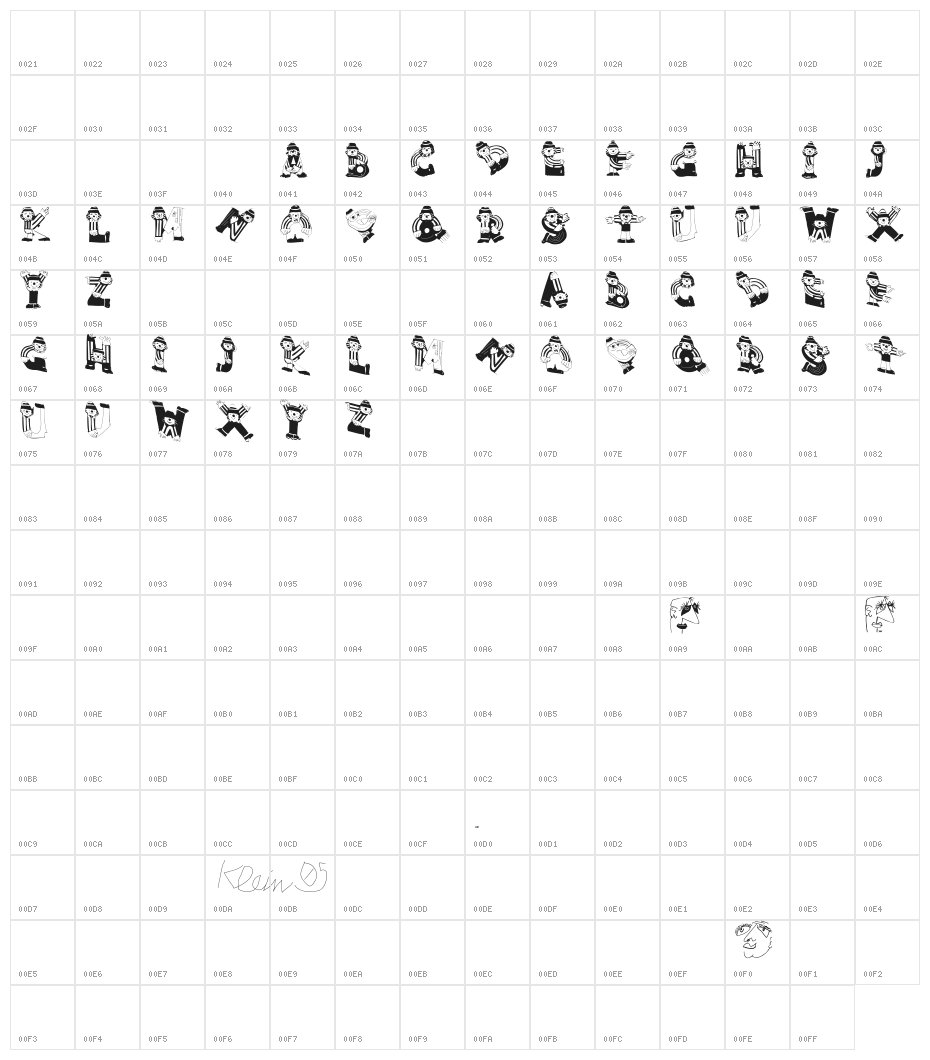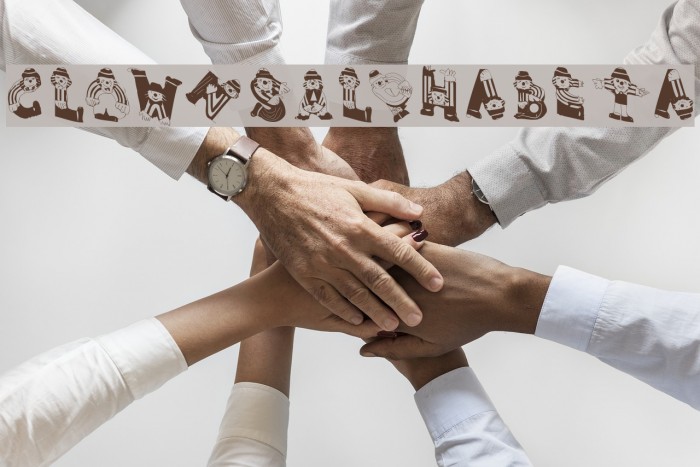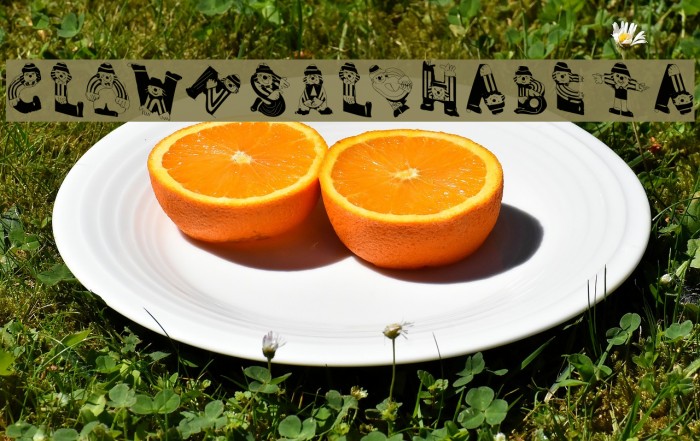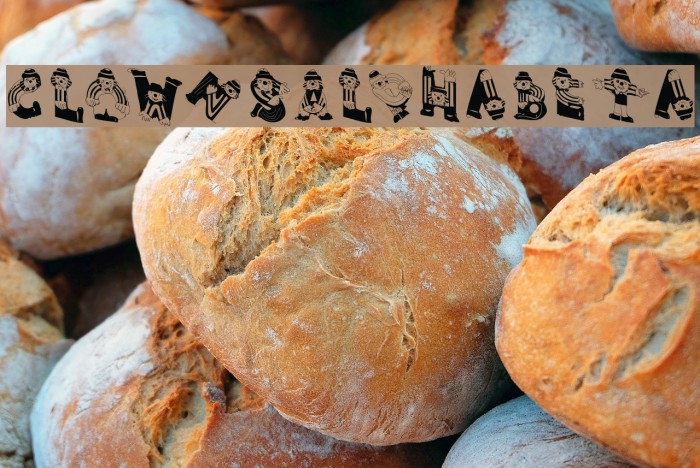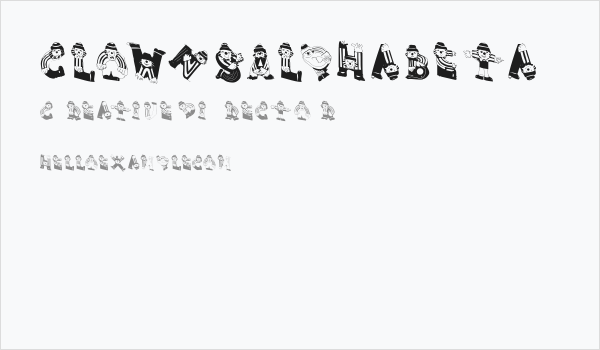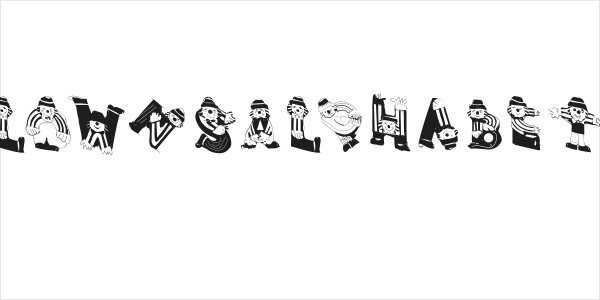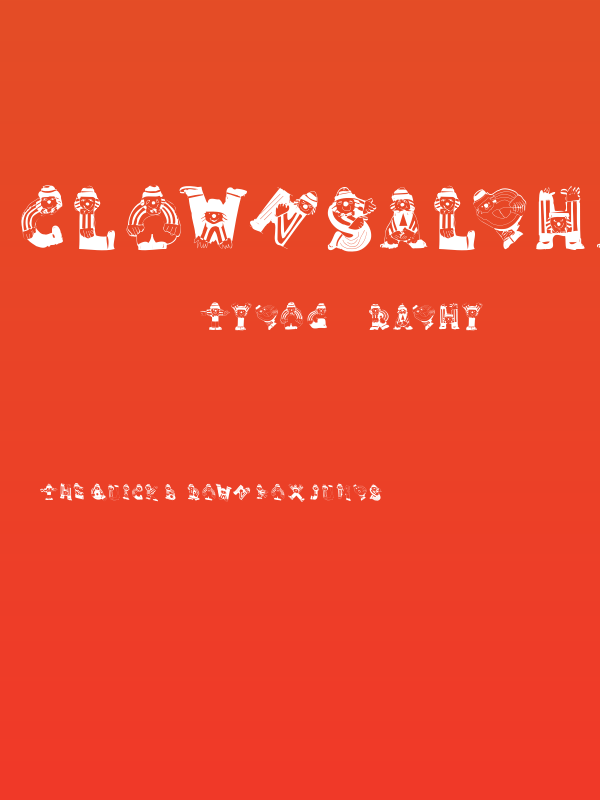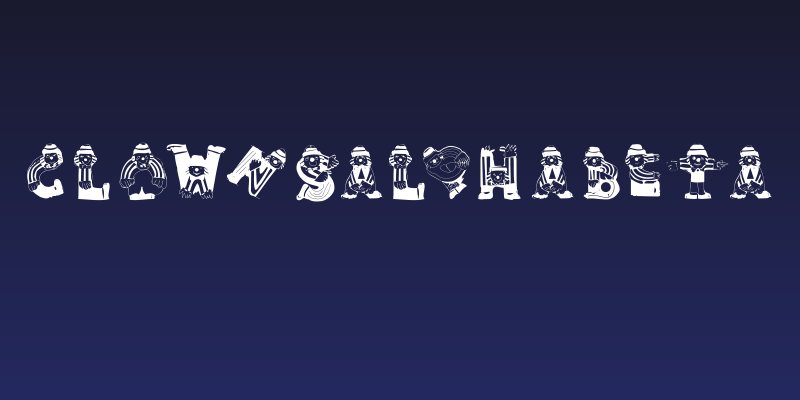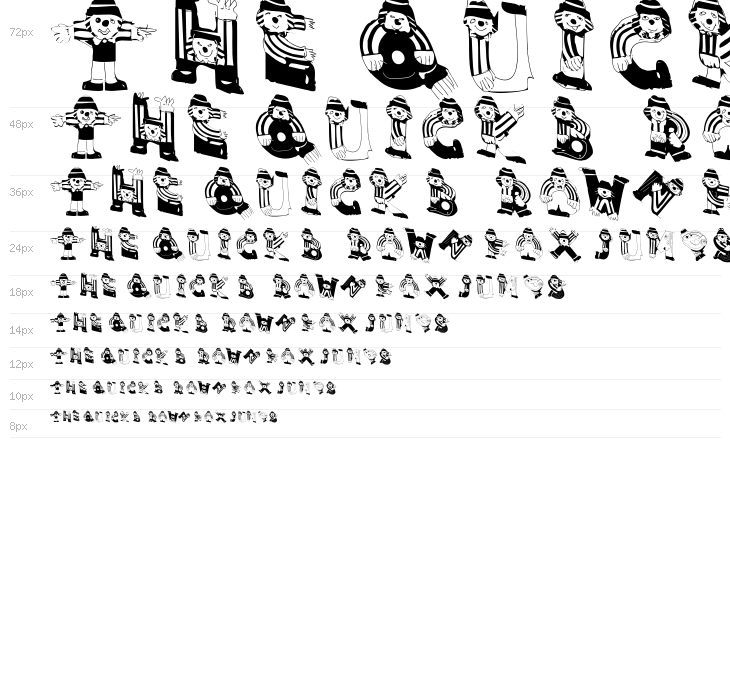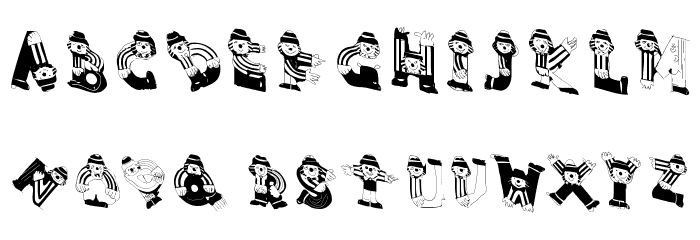
ClownsAlphaBeta Font
ClownsAlphaBeta Description
This whimsical and playful font features characters designed as clowns, each letter formed by a unique clown figure in various poses. The design incorporates bold, cartoonish elements with exaggerated features, such as oversized shoes and hats, creating a lively and entertaining appearance. The font is highly decorative, with each character being a distinct illustration, making it ideal for creative and fun projects. The use of black and white enhances the boldness and visibility of each character, while the intricate details add a layer of complexity and charm.
| Proposed Projects | Ideal for children's books, circus-themed events, party invitations, and playful branding projects. |